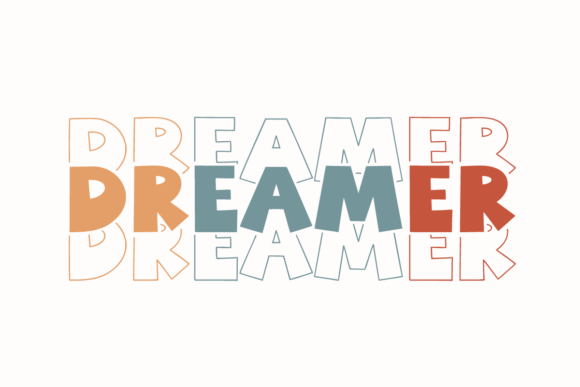
Cowboy Font
Font Cowboy Stacked, radiating a fusion of playfulness and sophistication. The stacked effect breathes a unique style into this typeface, making it an exceptional choice for diversified projects and distinctive branding. Each character in this font reflects a delightful blend of cute allure and stylish elegance. The Cowboy Stacked font undeniably brings a streak of creativity and originality in your design language.